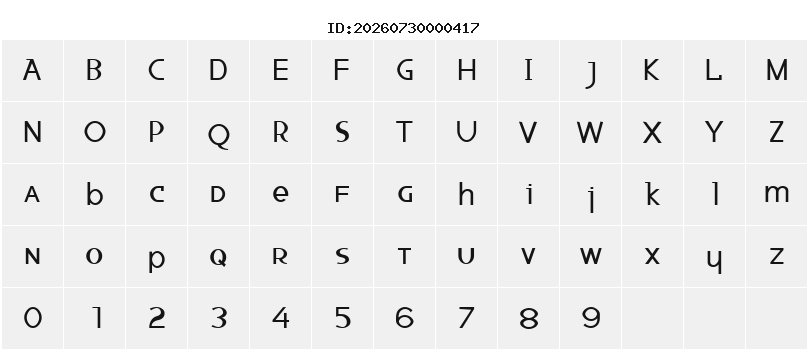
Ketchup Spaghetti Preview
• Font Name: Ketchup Spaghetti
• Full Font Name: Ketchup Spaghetti
About Ketchup Spaghetti.ttf
Ketchup Spaghetti.ttf is a modern, elegant sans-serif font designed for ultimate readability and visual harmony. Perfect for branding, headlines, web design, and print materials.